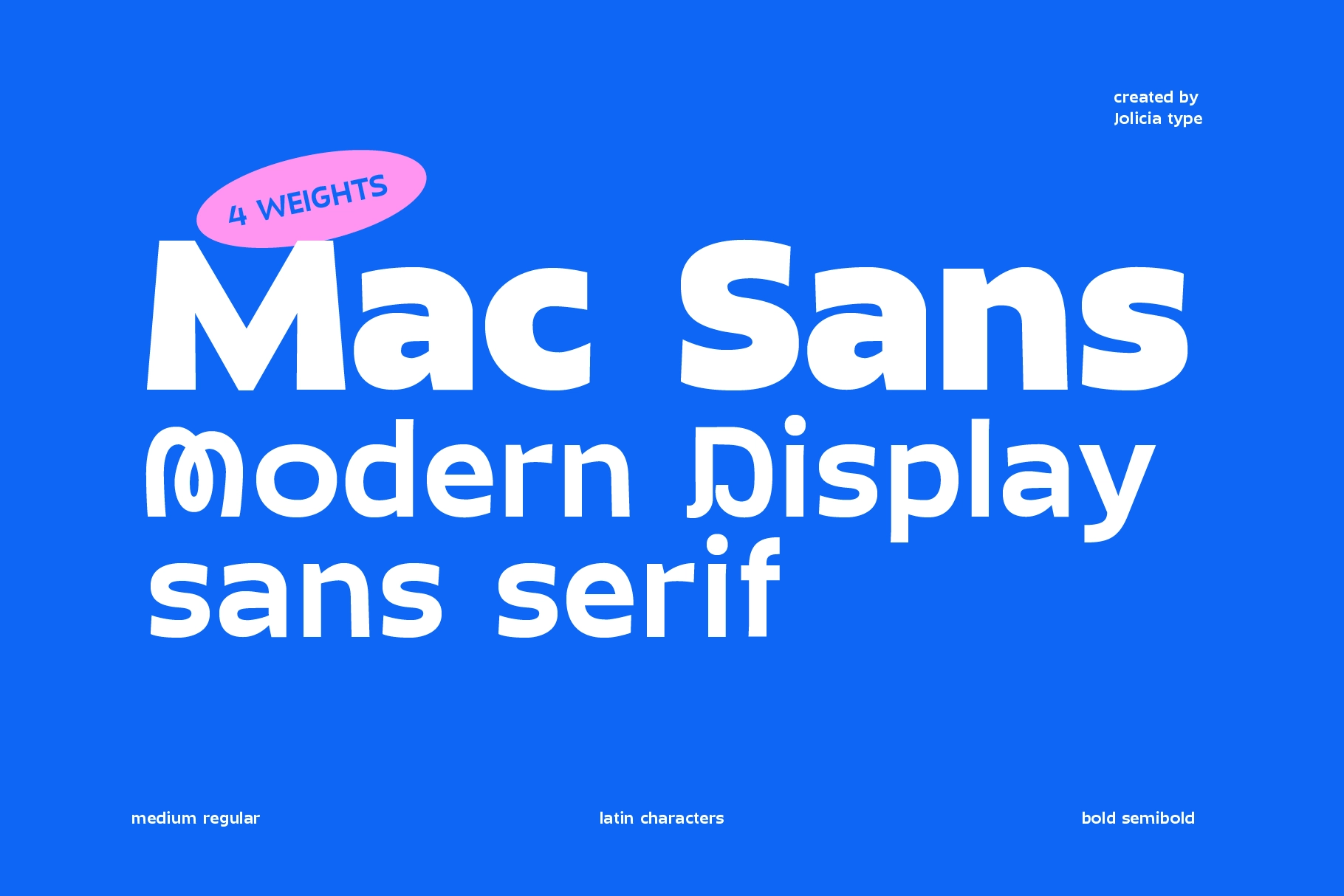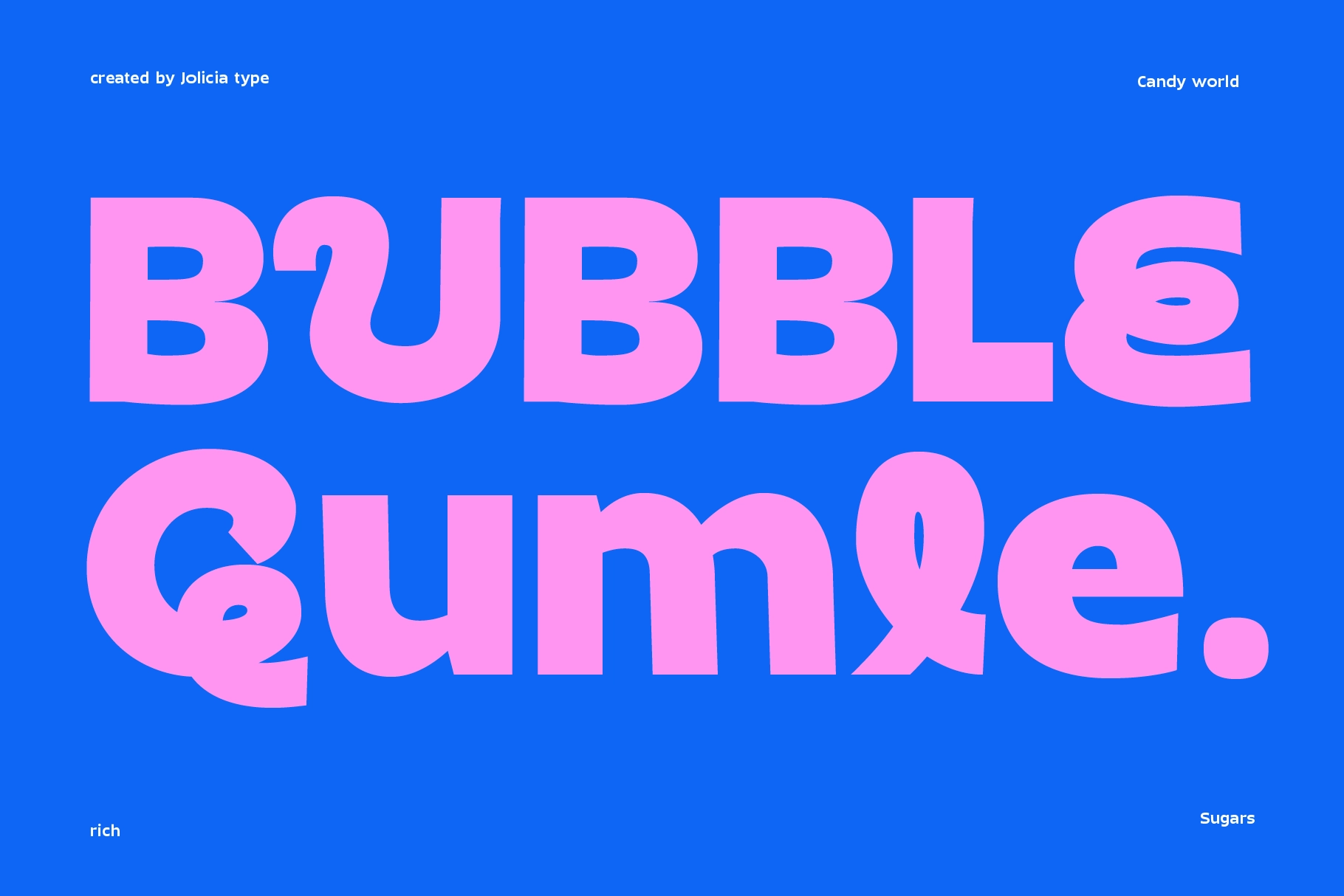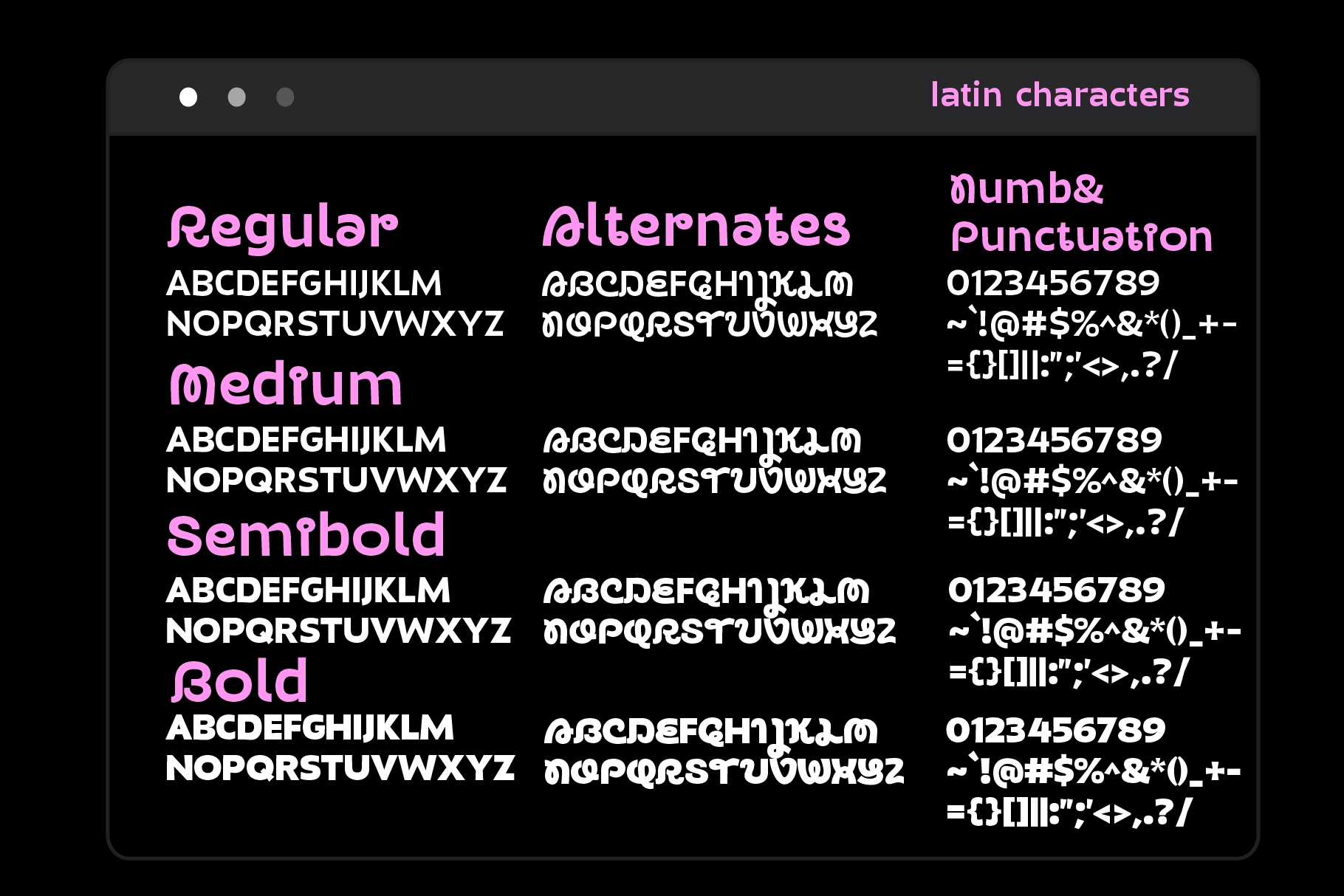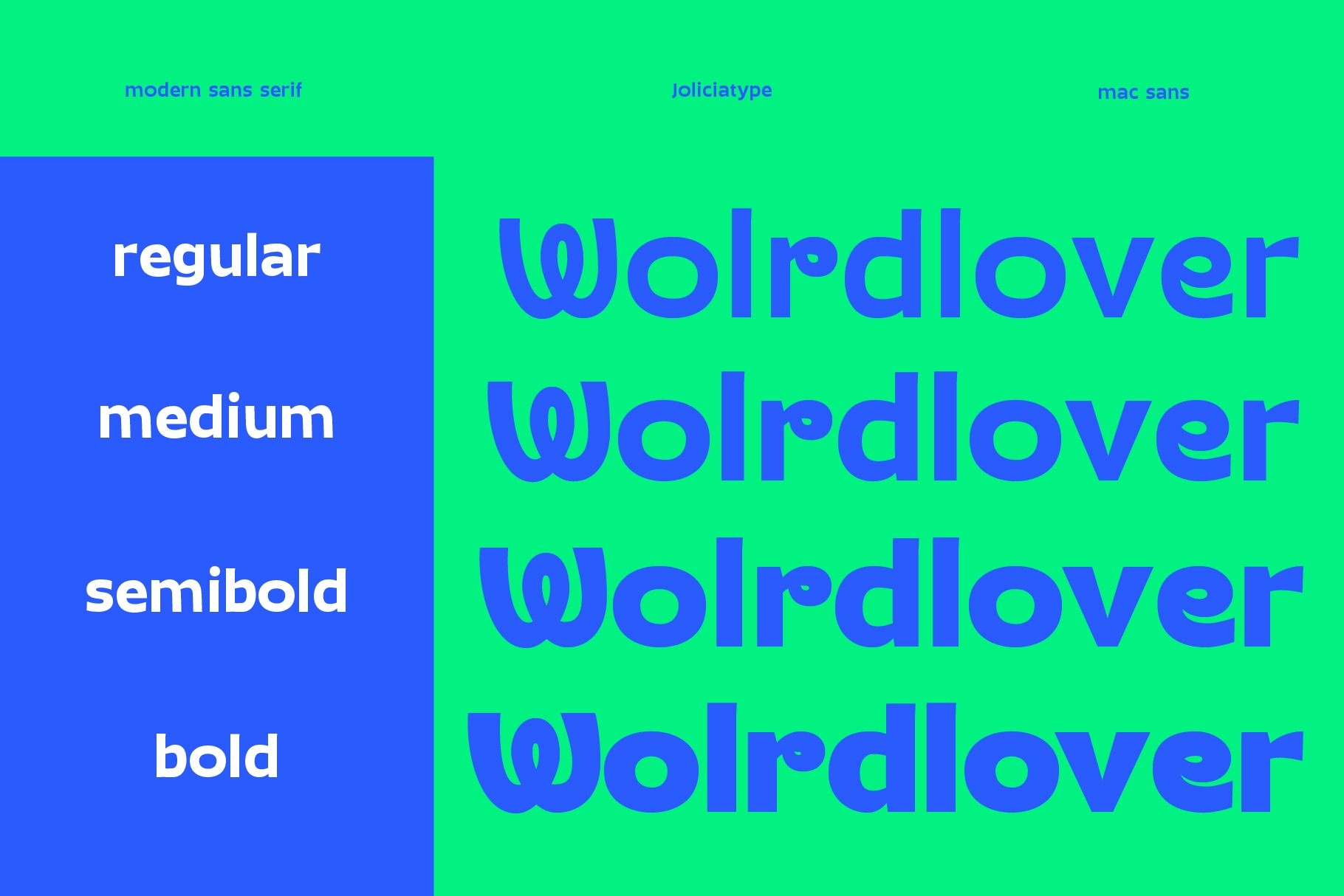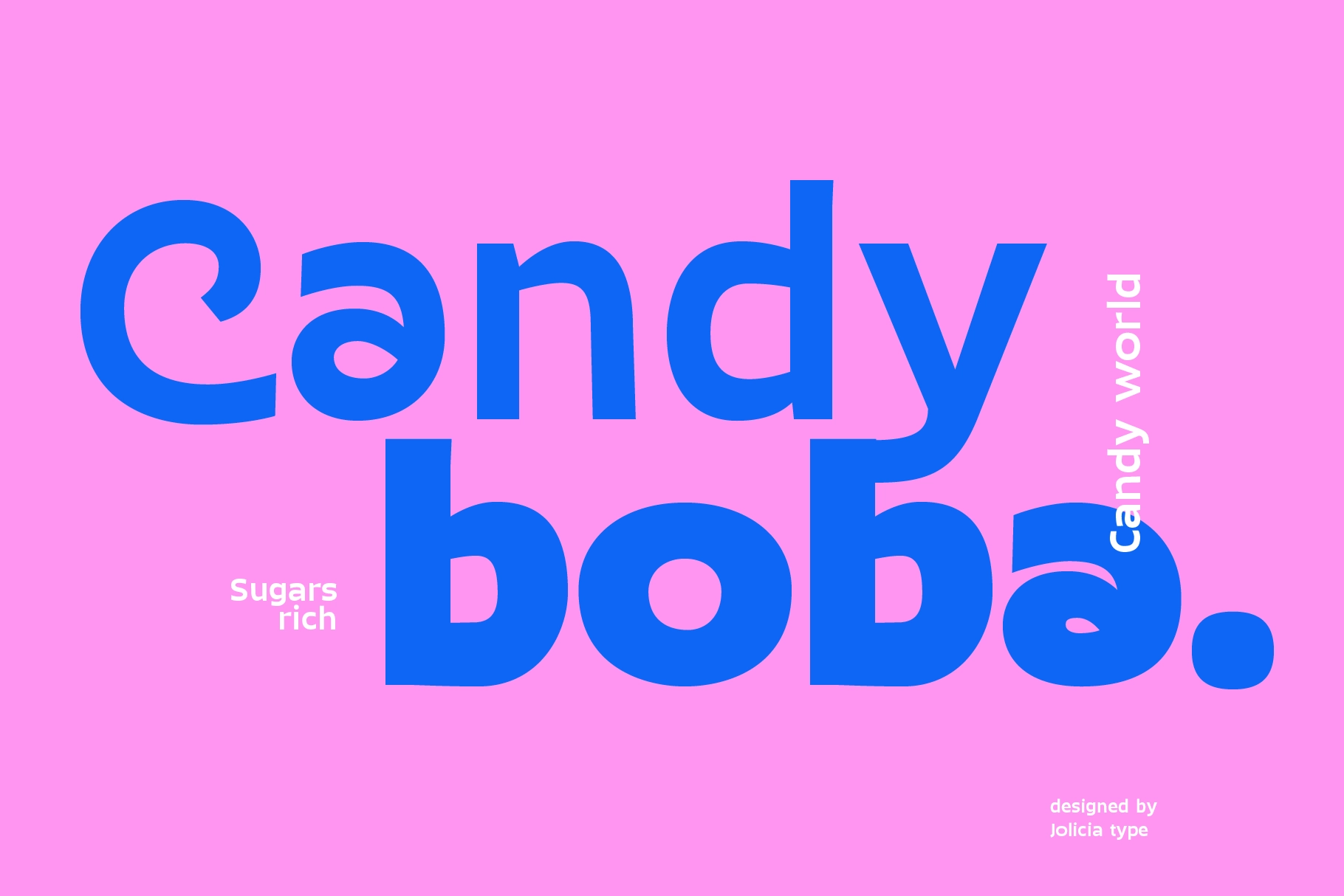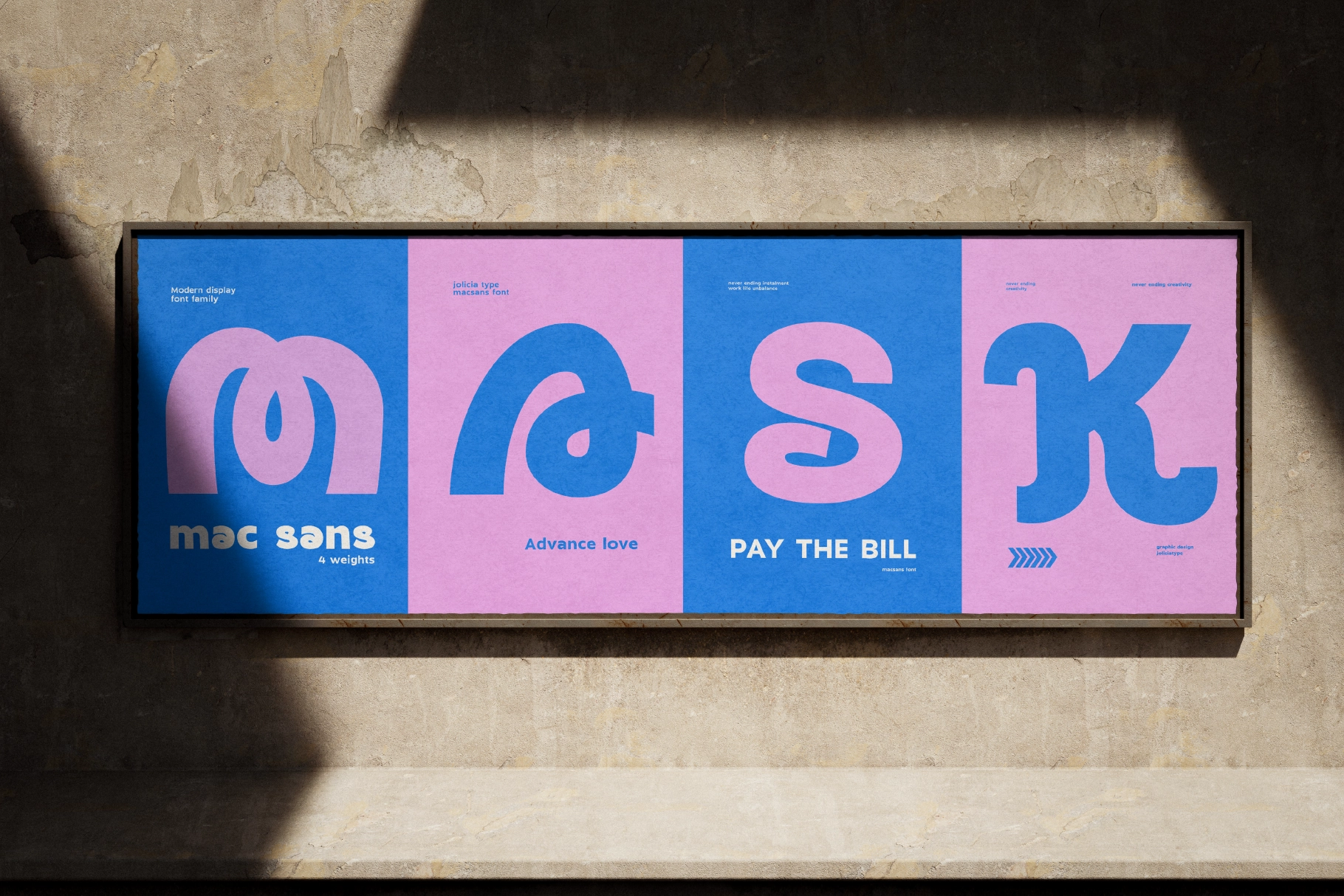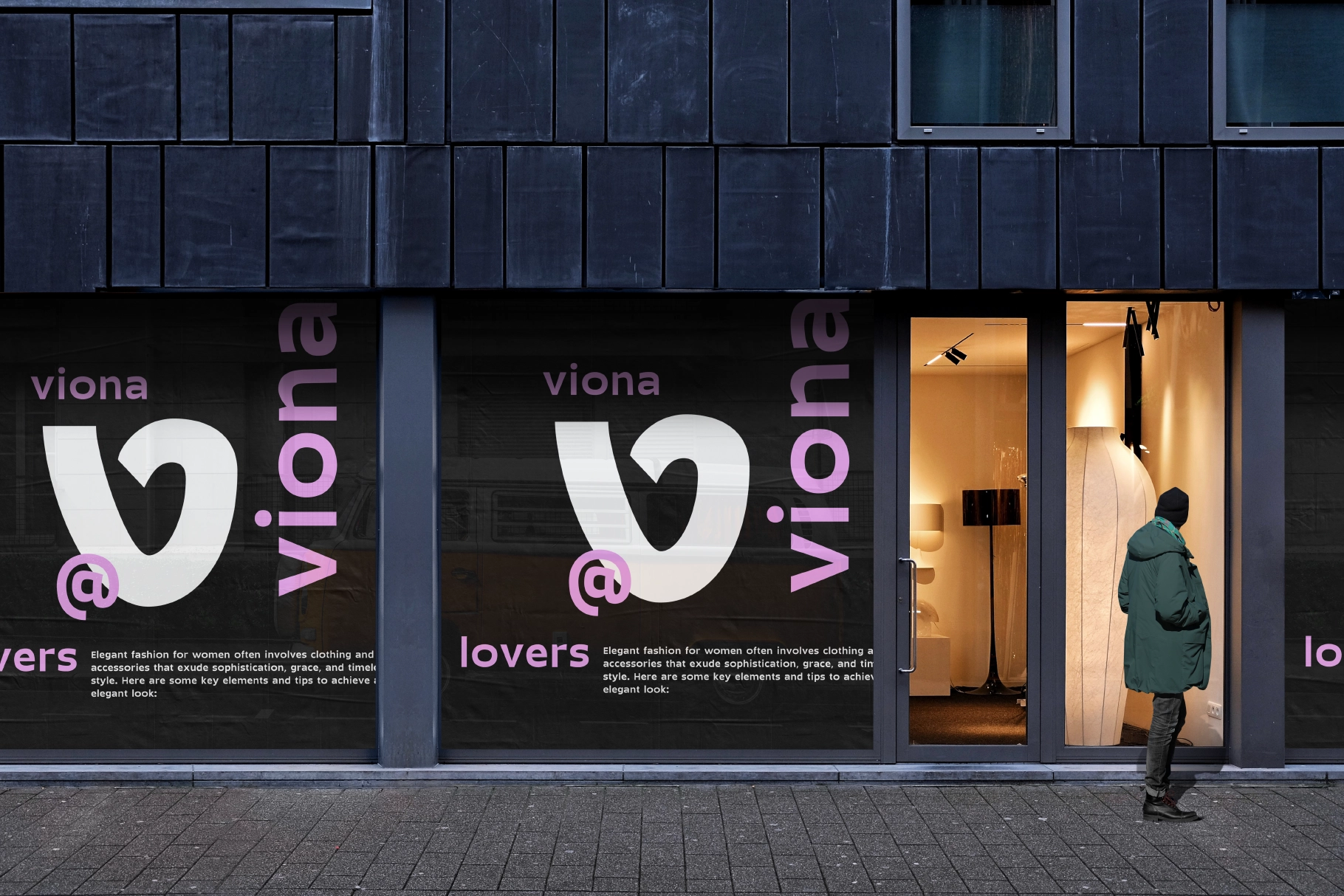
Mac Sans – Modern Display Sans Serif Font
Mac Sans – Modern Display Sans Serif Font is a modern display sans serif typeface designed to deliver bold visual impact with a playful, contemporary twist. Its rounded shapes and confident proportions create a strong yet friendly tone, making it perfect for eye-catching headlines, branding, and expressive design work.
With its distinctive character and smooth geometry, this typeface brings personality to every composition. It balances clarity and uniqueness, allowing it to stand out in posters, packaging, social media graphics, and modern identity systems while remaining highly readable.
- 4 font weights (Regular, Medium, Semibold, Bold)
- Uppercase and lowercase letters
- Numerals and punctuation
- Alternates and stylistic characters